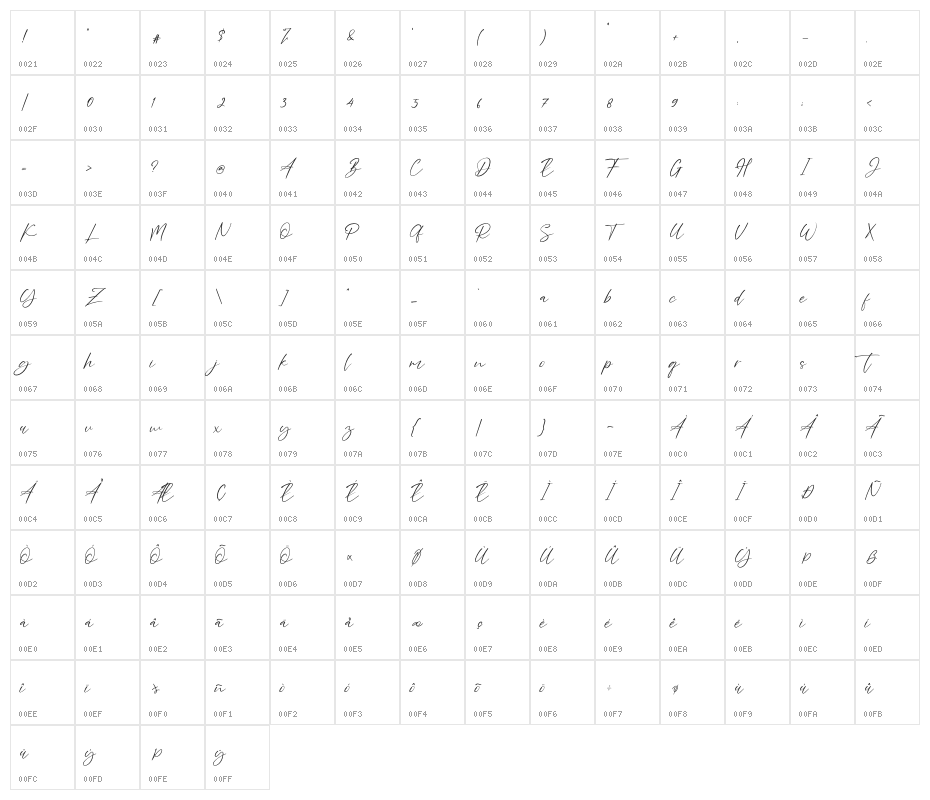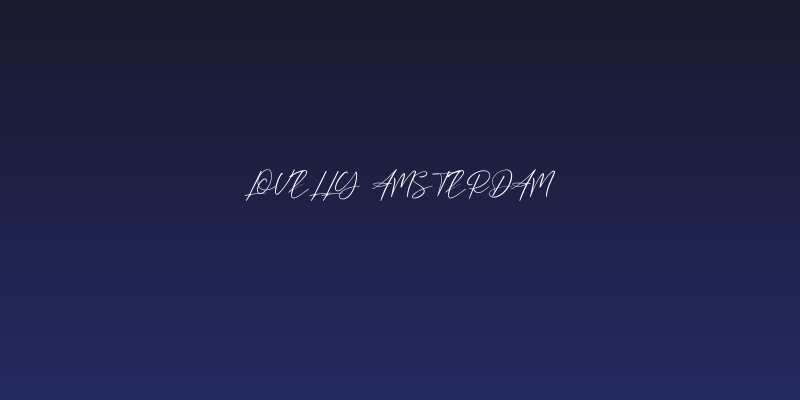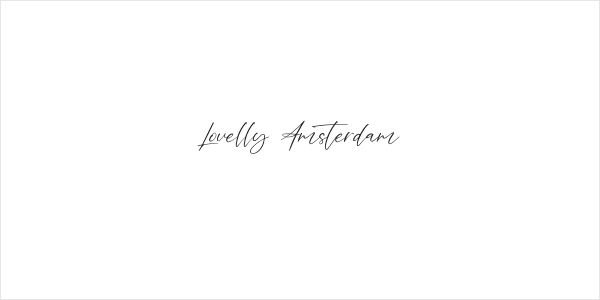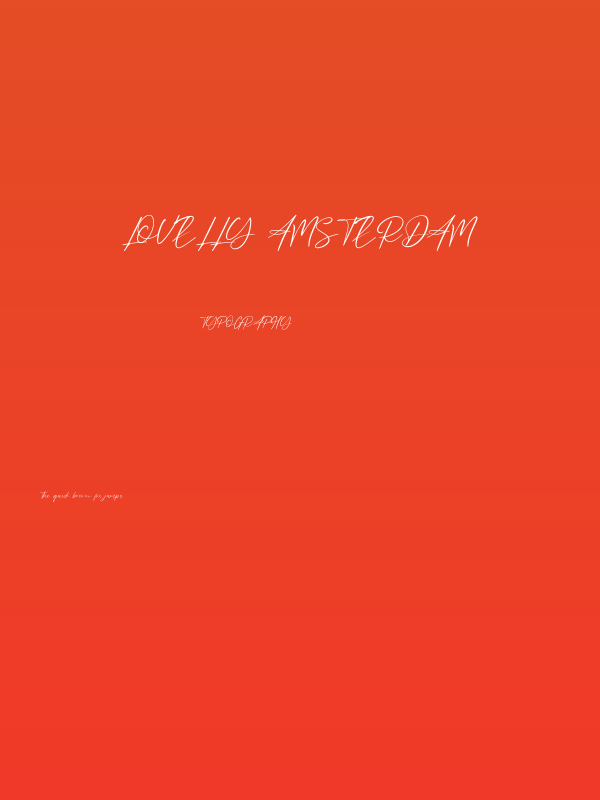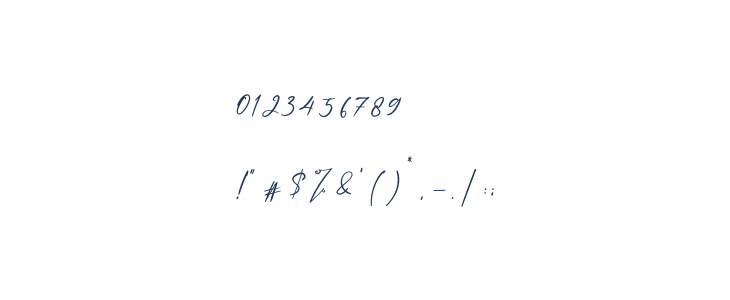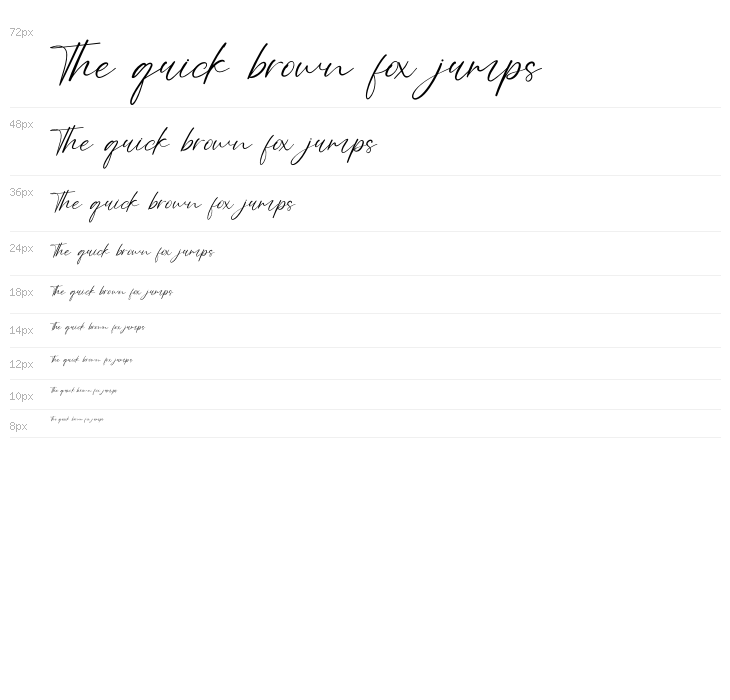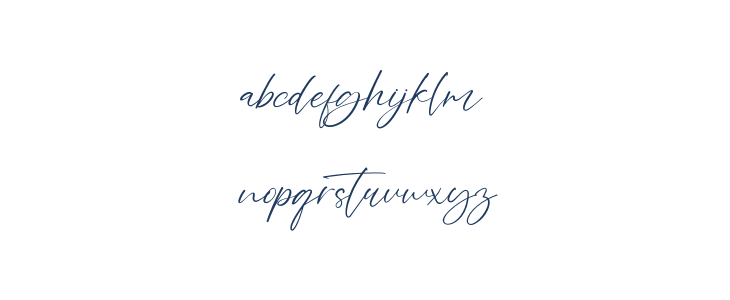
Lovelly Amsterdam Font
Lovelly Amsterdam Description
This font exudes elegance and sophistication with its flowing, cursive script style. The characters are gracefully connected, creating a seamless and fluid appearance. The uppercase letters are slightly more embellished, adding a touch of flair, while the lowercase letters maintain a consistent and smooth flow. The numerals and special characters are designed to complement the overall script style, ensuring a cohesive look. The font's delicate strokes and slight slant give it a refined and artistic feel, making it ideal for projects that require a personal and elegant touch.
| Overall Style | Elegant, Artistic |
| Use Case | Logos, Invitations, Personal branding |
| Proposed Projects | Ideal for wedding invitations, greeting cards, personal branding, and elegant logo designs. |